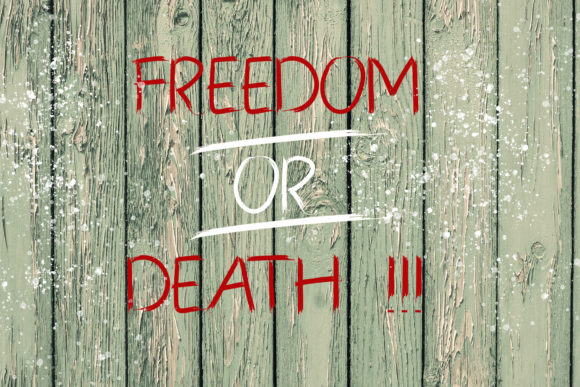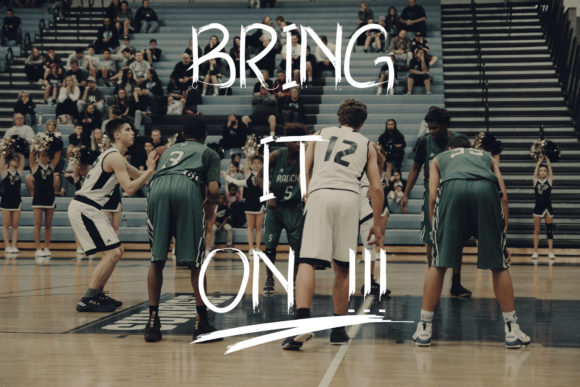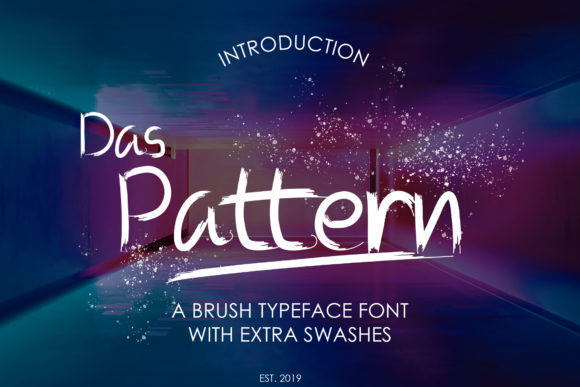
Introducing Das Pattern Font: The Handmade Brush Typeface for Unique Designs
The Das Pattern Font is an amazing brush typeface that has taken the design world by storm. This handmade font is crafted to add a natural touch to your designs, making it perfect for a wide range of creative projects. From logos and branding to clothing, posters, and more, Das Pattern Font is the ideal choice for designers and crafters looking to add a personal touch to their work.
The Story Behind Das Pattern Font
Das Pattern Font is a labor of love, carefully crafted by skilled designers who poured their hearts and souls into creating a truly unique typeface. The font’s handmade nature gives it a distinct character that sets it apart from machine-generated fonts. Each brush stroke, each letter, and each word is meticulously designed to evoke a sense of warmth and personality.
Key Features of Das Pattern Font
- Handmade with love: Das Pattern Font is crafted with precision and care, ensuring that every detail is perfect.
- Natural touch: The font’s brush strokes and imperfections give it a natural, organic feel that’s perfect for designs that require a personal touch.
- Versatile: Das Pattern Font is suitable for a wide range of design projects, from logos and branding to clothing, posters, and more.
- Easily readable: Despite its handmade nature, Das Pattern Font is surprisingly easy to read, making it perfect for body text and headlines.
Use Cases for Das Pattern Font
Das Pattern Font is an incredibly versatile typeface that can be used in a variety of design projects. Here are some ideas to get you started:
- Logos and branding: Create a unique and memorable brand identity with Das Pattern Font.
- Clothing and apparel: Add a personal touch to your clothing designs with this handmade font.
- Posters and flyers: Create eye-catching posters and flyers with Das Pattern Font’s bold and expressive letters.
- Stationery and invitations: Add a touch of elegance and sophistication to your stationery and invitations.
Tips for Using Das Pattern Font
To get the most out of Das Pattern Font, here are some tips to keep in mind:
- Experiment with colors: Das Pattern Font looks great in a variety of colors, so don’t be afraid to experiment and find the perfect hue for your design.
- Mix and match: Combine Das Pattern Font with other fonts to create a unique and interesting typography.
- Pay attention to spacing: Make sure to adjust the spacing between letters and words to create a clean and balanced design.
Das Pattern Font is an amazing brush typeface that’s perfect for designers and crafters looking to add a natural touch to their designs. With its handmade nature, versatility, and ease of use, this font is sure to become a staple in your design toolkit. So why wait? Download Das Pattern Font today and start creating unique and stunning designs that stand out from the crowd!